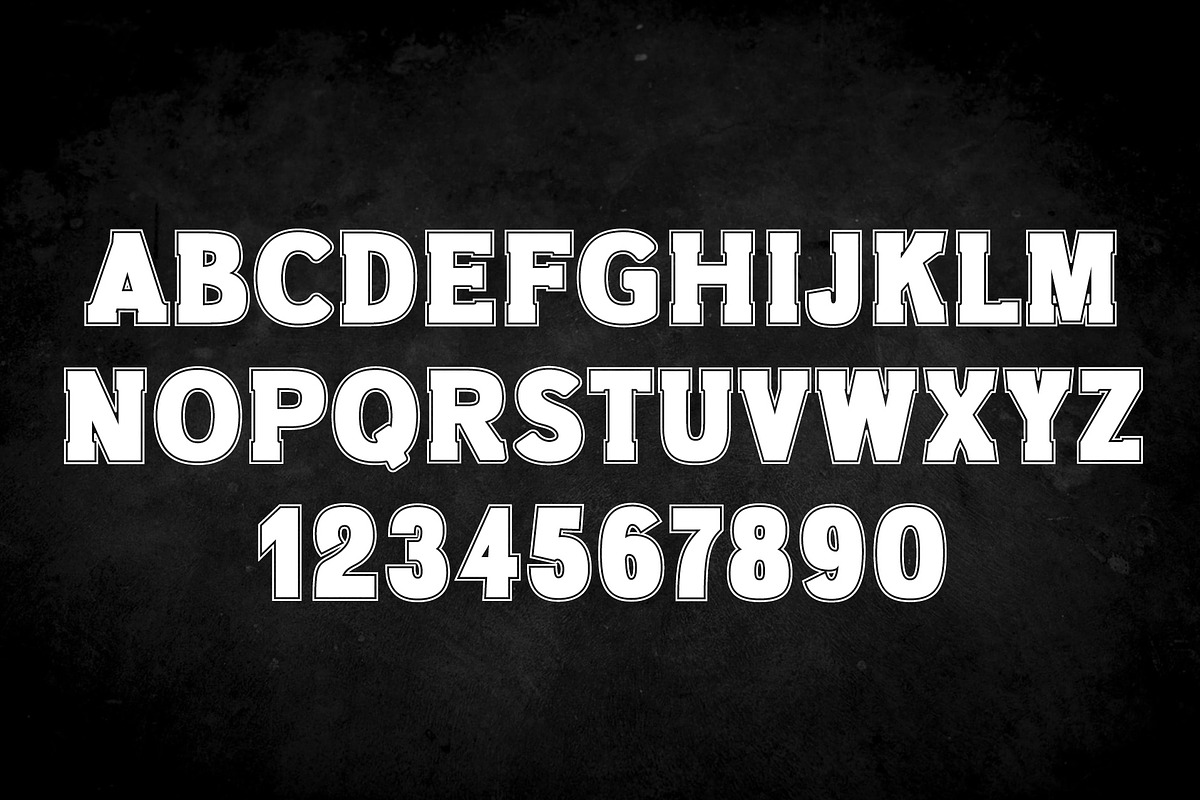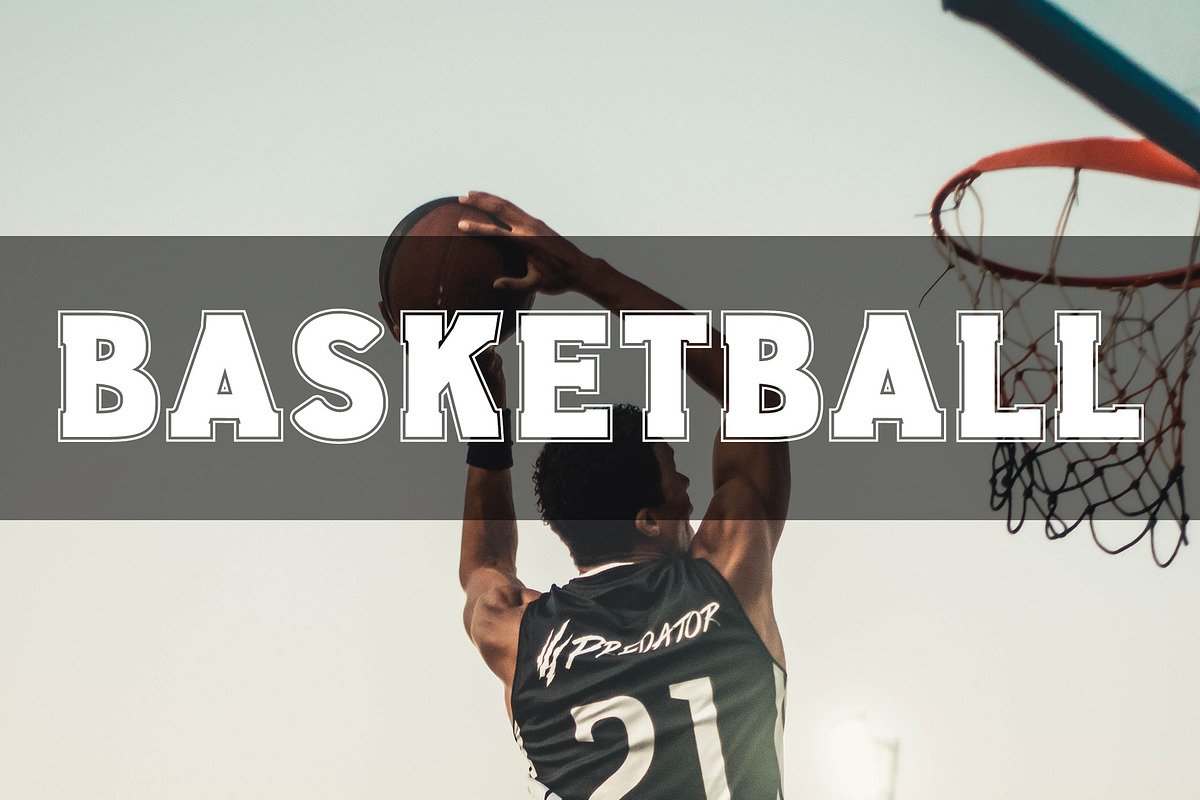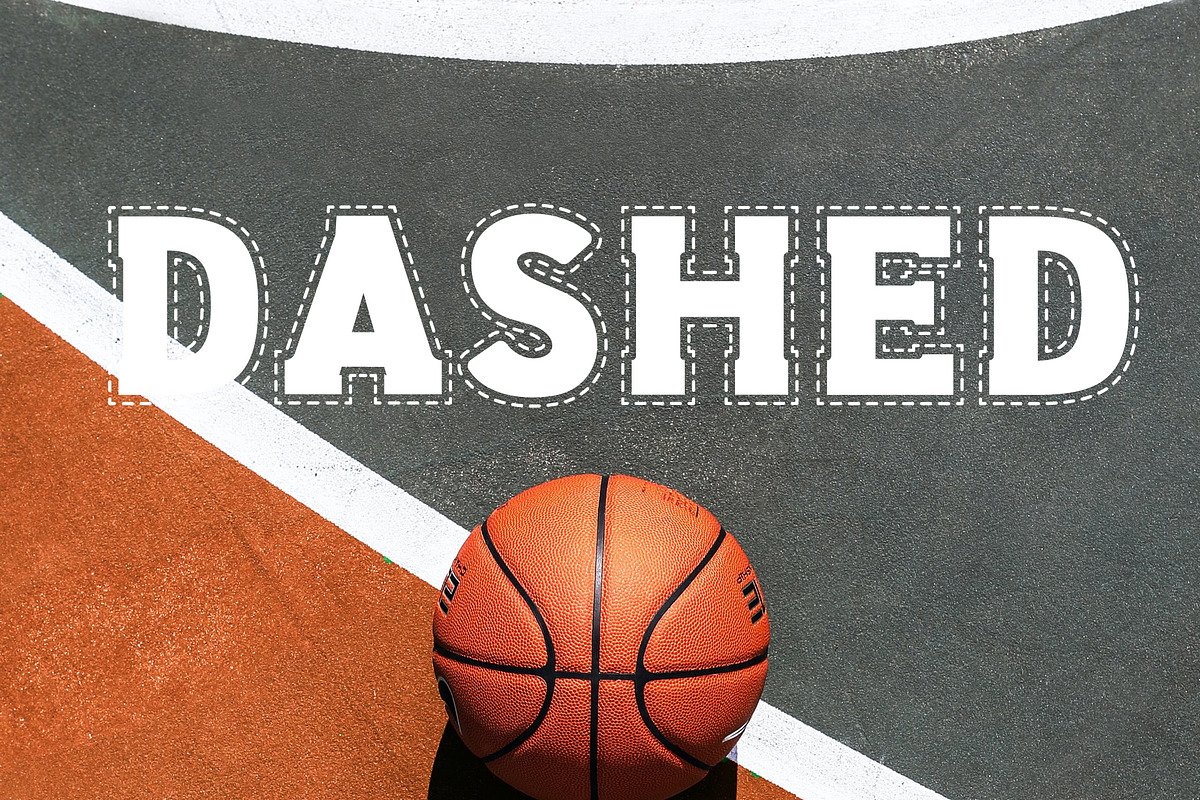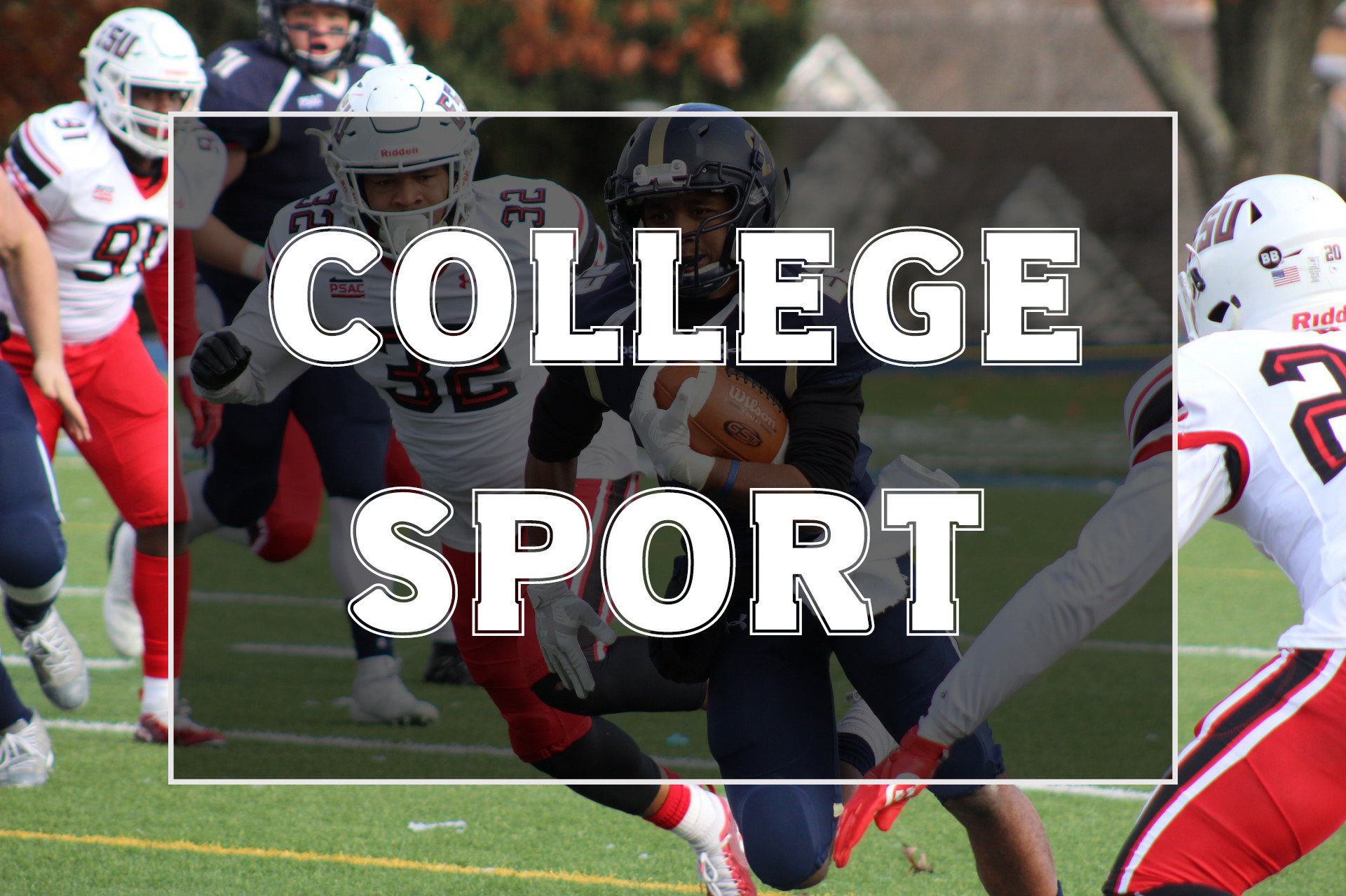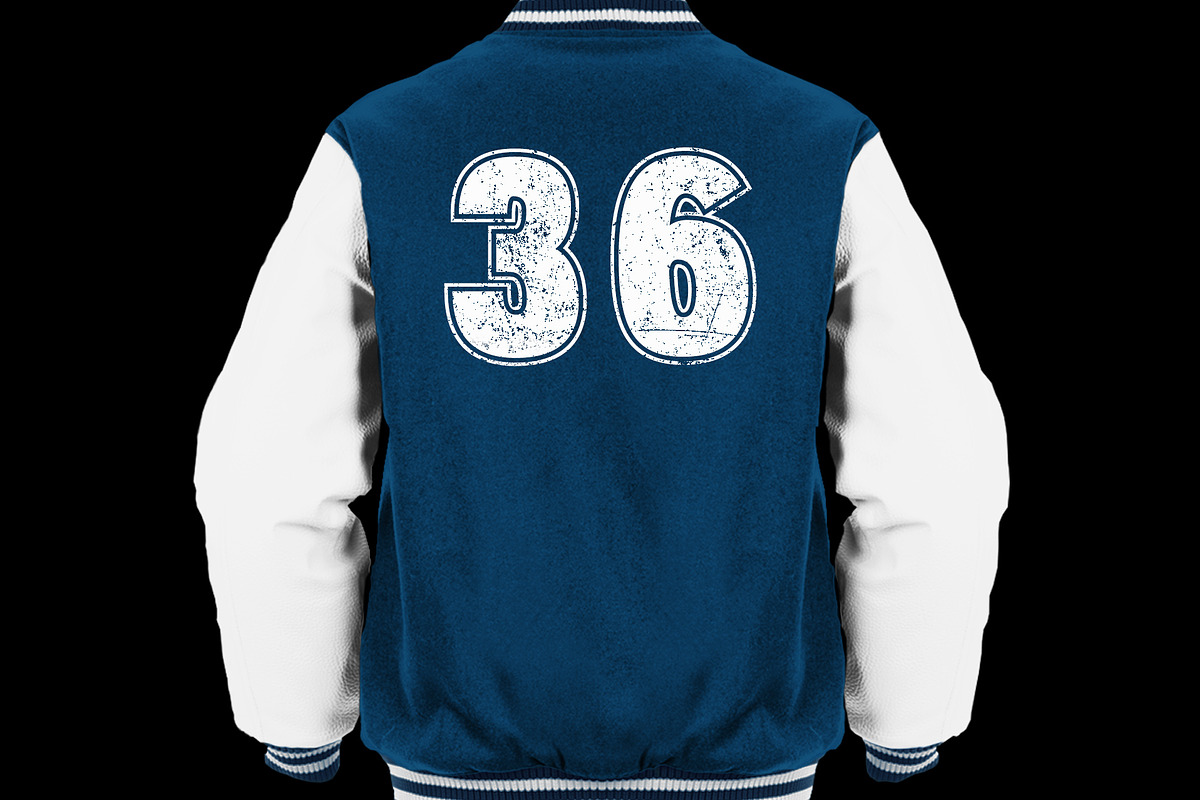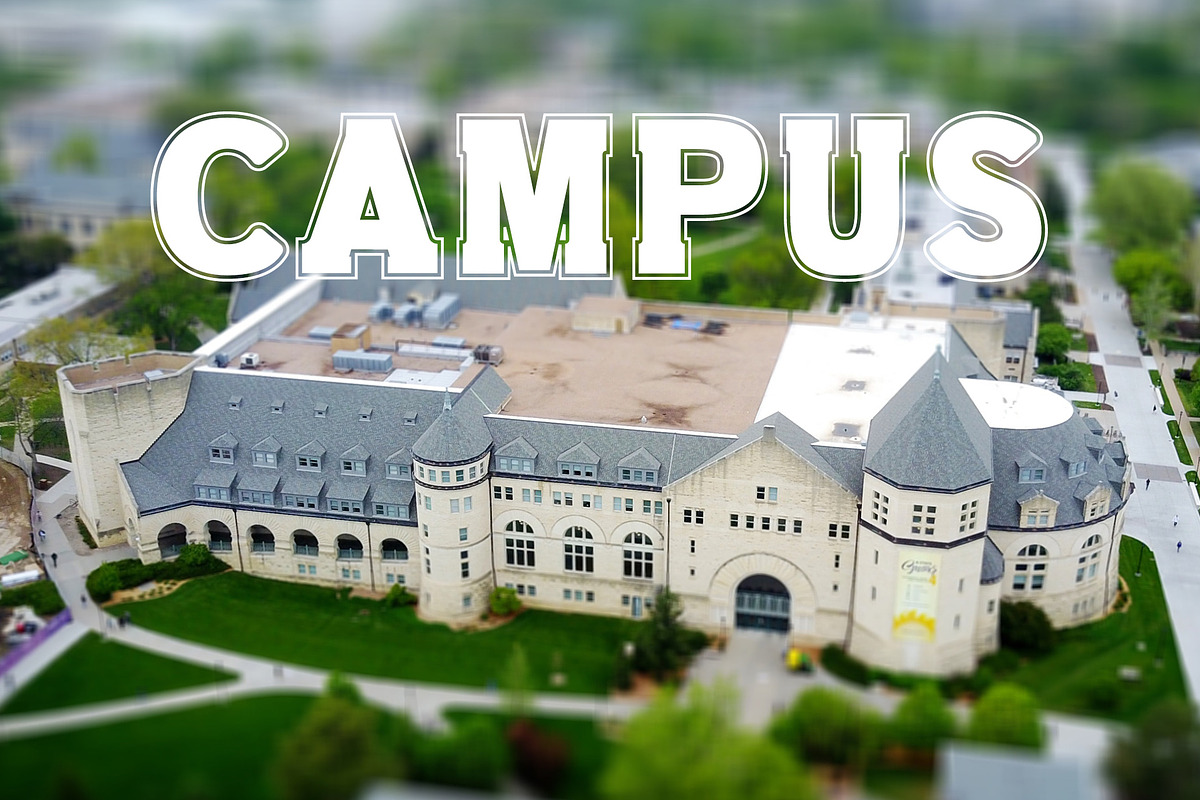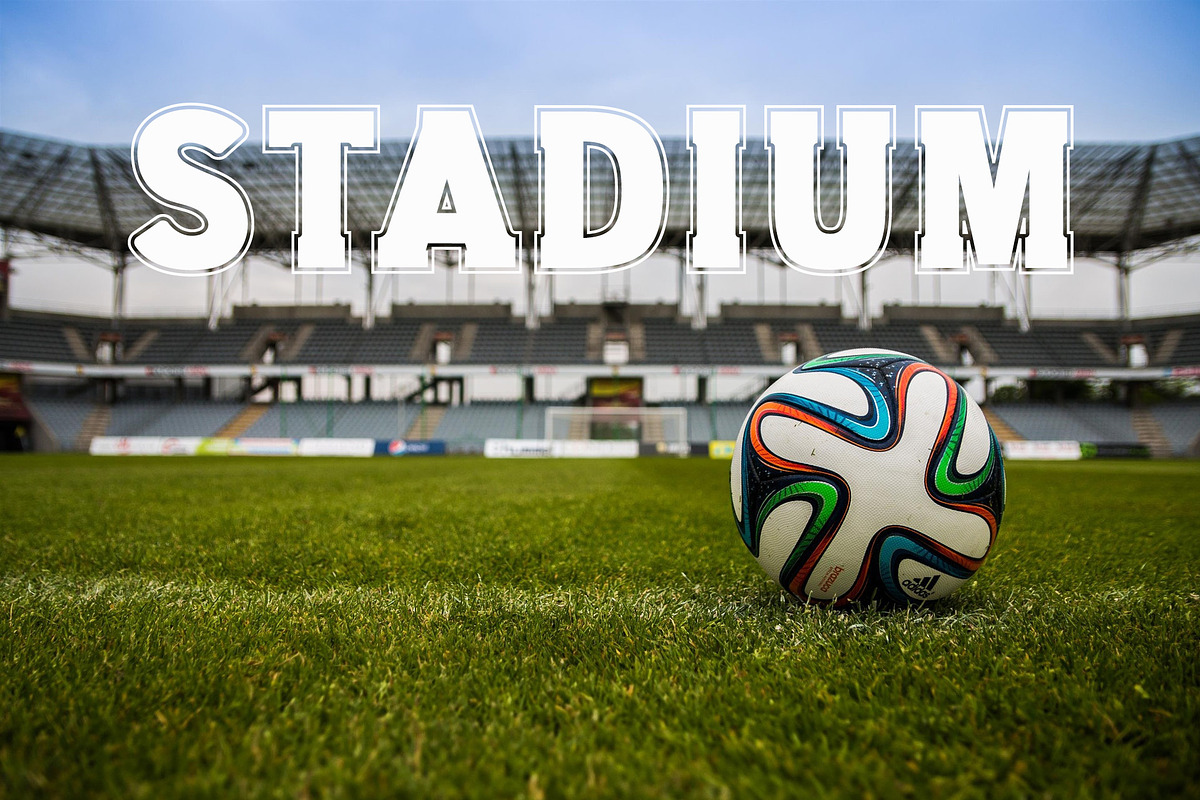
College Sport Font
College Sport - Old School Typeface.
College Sport is a bold and chunky lettered slab serif font. Add it to your sporting events and notice how it makes them stand out!
Also dashed variance of the font is included.
Great pet font for posters, logos, packaging, school and education projects, websites, T-Shirts and more.